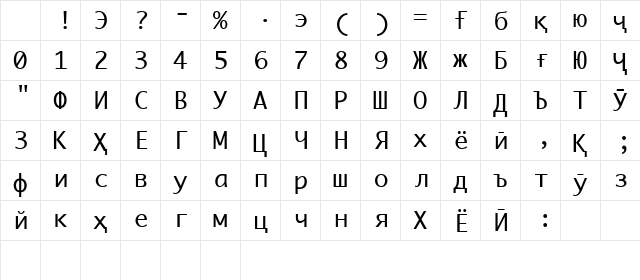
Complete X Tajik Monaco CYR Regular glyph index. Displaying only characters natively supported by X Tajik Monaco CYR Regular font.
X Tajik Monaco CYR is a composed and adaptable typeface that performs quietly and consistently across a wide range of design contexts.